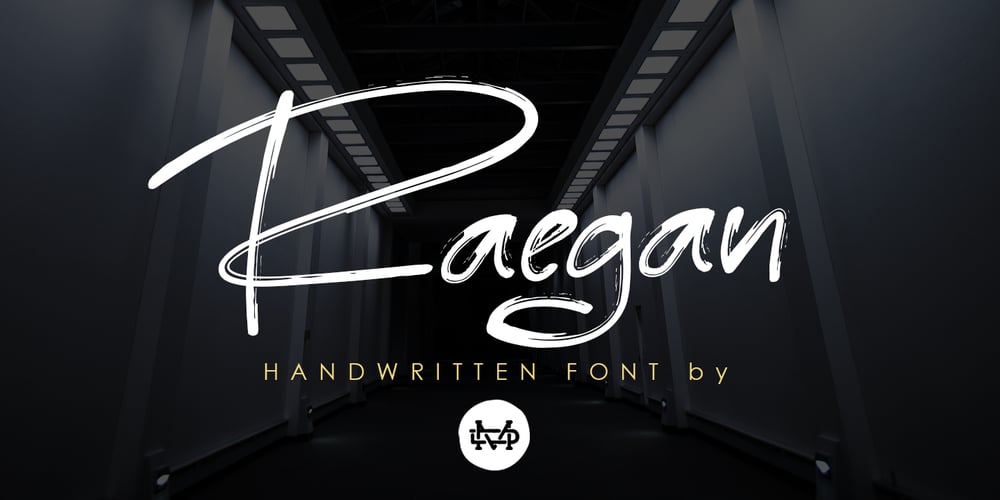
Raegan
Raegan font
Raegan Font Family was designed by Suandana ipandemade and published by madeDeduk. Raegan contains 1 styles and family package options. Raegan is a handwritten Brush. This font perfect is for poster design, book covers, merchandise, fashion campaigns, newsletters, branding, advertising, magazines, greeting cards, album covers, and quote designs and more. Feature: – Uppercase – lowercase – Numbers and Symbol – International Glyphs – Alternative Uppercase – Alternative lowercase If you need anything else please contact me by message.